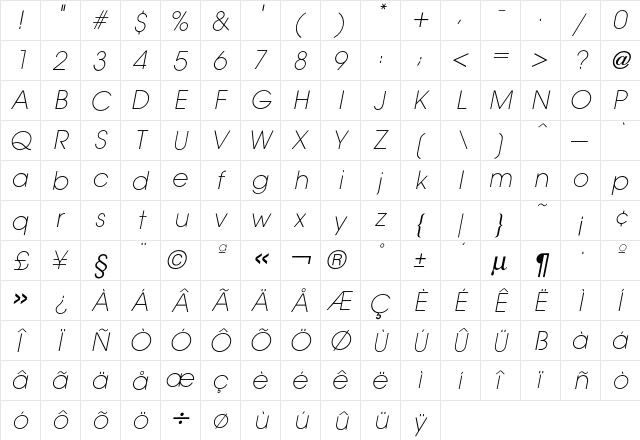
Avant GardeXLightOblique
Design Context for Avant Typeface
Avant is a composed and adaptable typeface that performs quietly and consistently across a wide range of design contexts. The dynamic lean of this cut emphasises speed and emphasis in any layout. Its slender proportions lend an understated elegance to any composition.
Pro Tip: Try Avant for annotation and caption copy alongside an upright companion — the contrast in angle creates a dynamic but ordered typographic system.